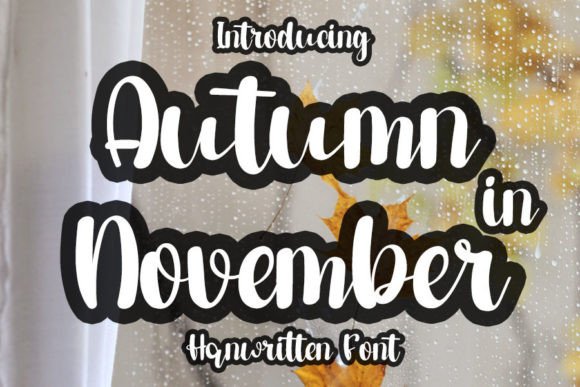
The Perfect Autumnal Touch: Discovering the Autumn in November Font
As designers, we’ve all been there – stuck on a project, searching for that one font that will elevate our work from good to great. I recall a particularly frustrating experience while working on a fall-themed branding project for a client. The design was almost complete, but the font just wasn’t cooperating. It was too bland, too generic, or just not autumnal enough. That’s when I stumbled upon the Autumn in November font, and it was love at first sight! 💕
A Personal Review: What I Love About Autumn in November
Autumn in November is a stylish handwritten font that exudes a contemporary atmosphere while maintaining impeccable form, inspired by timeless classic calligraphy. Here’s what I’m obsessed with:
- ✨ Balanced and varied: This font is designed to enhance the beauty of your projects, and it truly delivers. The letters have a wonderful flow, making it perfect for creating visually appealing text.
- ✅ Elegant and sophisticated: Autumn in November has a certain je ne sais quoi that adds a touch of elegance to any design. It’s perfect for projects that require a bit of sophistication.
- 💫 Contemporary feel: Although it’s inspired by classic calligraphy, this font has a modern twist that makes it perfect for current design trends.
While I adore Autumn in November, there are a few minor things to keep in mind:
- ⚠️ Legibility at small sizes: Like many script fonts, Autumn in November can become a bit tricky to read at very small sizes. Make sure to test it in your design to ensure it’s legible.
- 🤔 Limited use in body text: While it’s stunning for headings and titles, it might not be the best choice for long blocks of body text. Consider pairing it with a complementary font for better readability.
- Experiment with OpenType features like ligatures and stylistic alternates to add some flair to your design.
The Story Behind Autumn in November
Autumn in November was created with the intention of capturing the essence of timeless classic calligraphy while infusing it with a modern twist. The designer aimed to create a font that would be both elegant and contemporary, perfect for designers looking to add a touch of sophistication to their projects. Although the real story behind the font’s creation is unknown, it’s clear that the designer succeeded in crafting a truly unique and beautiful font.
Q: Is Autumn in November suitable for body text?
A: While it’s a beautiful font, Autumn in November might not be the best choice for long blocks of body text. Consider pairing it with a complementary font for better readability.